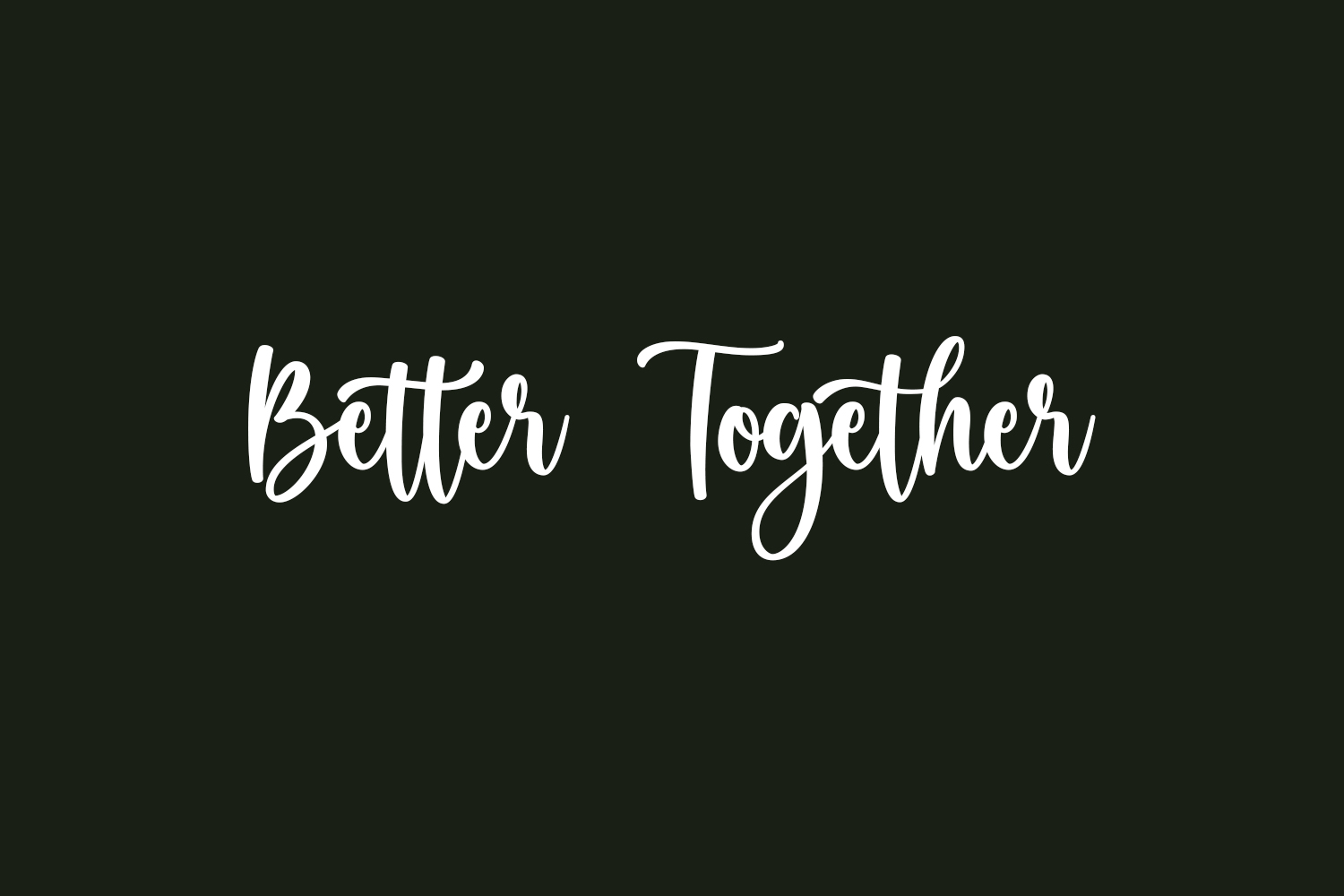
Better Together Free Font is a lovely and timeless handwritten font that exudes warmth and personality. With its casual, yet elegant style, it’s perfect for crafting invitations, social media graphics, and other romantic designs. The font features a unique and lively script, with a variety of looping letters and playful flourishes that give it a hand-drawn feel. Whether you’re looking to add a touch of romance to your next project, create heartfelt messages, or simply want to inject some personality into your text, Better Together is the perfect choice for any project that needs a touch of love and elegance.